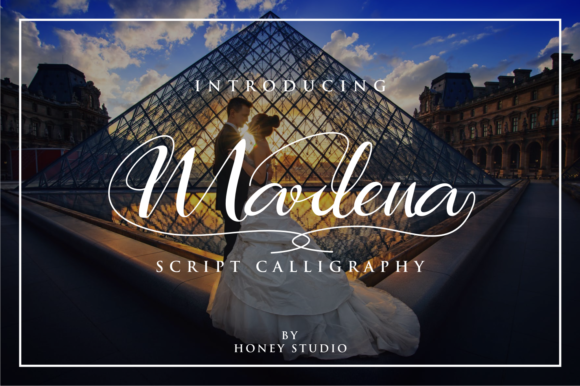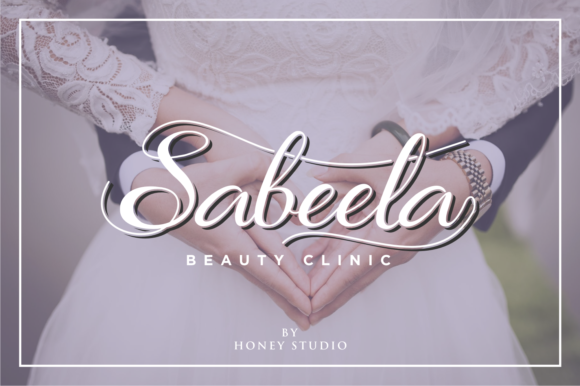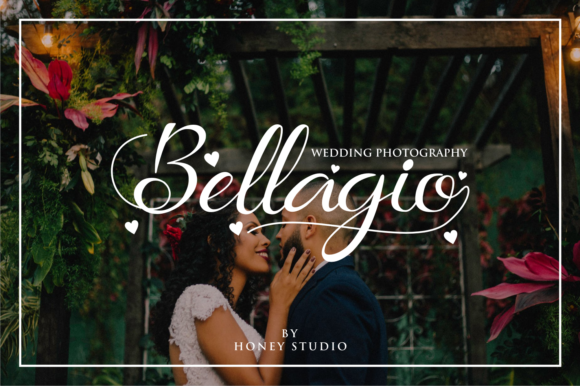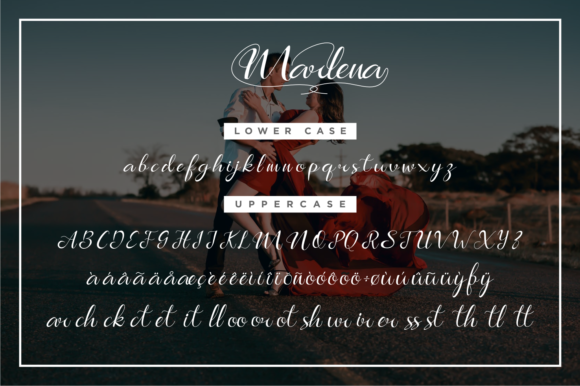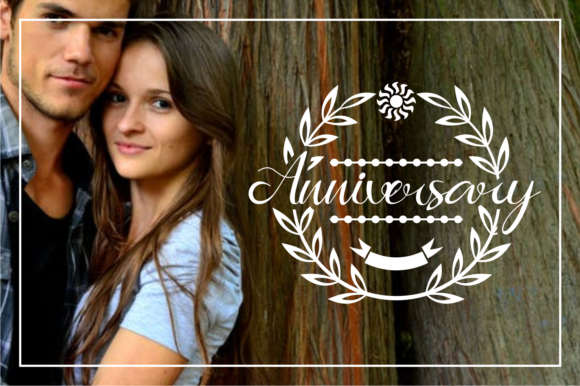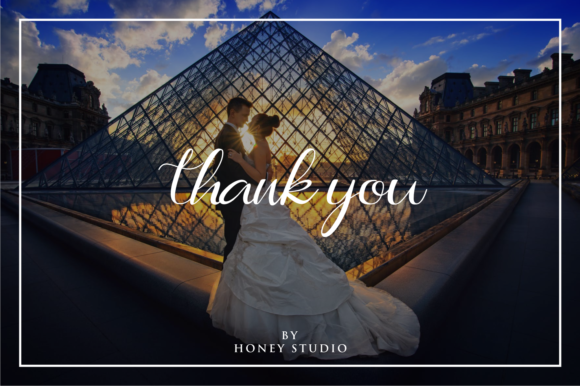
Marlena Font
About Marlena Font
Marlena is a new, modern & fresh calligraphy. Marlena looks natural and elegant and is perfect for a large range of projects.